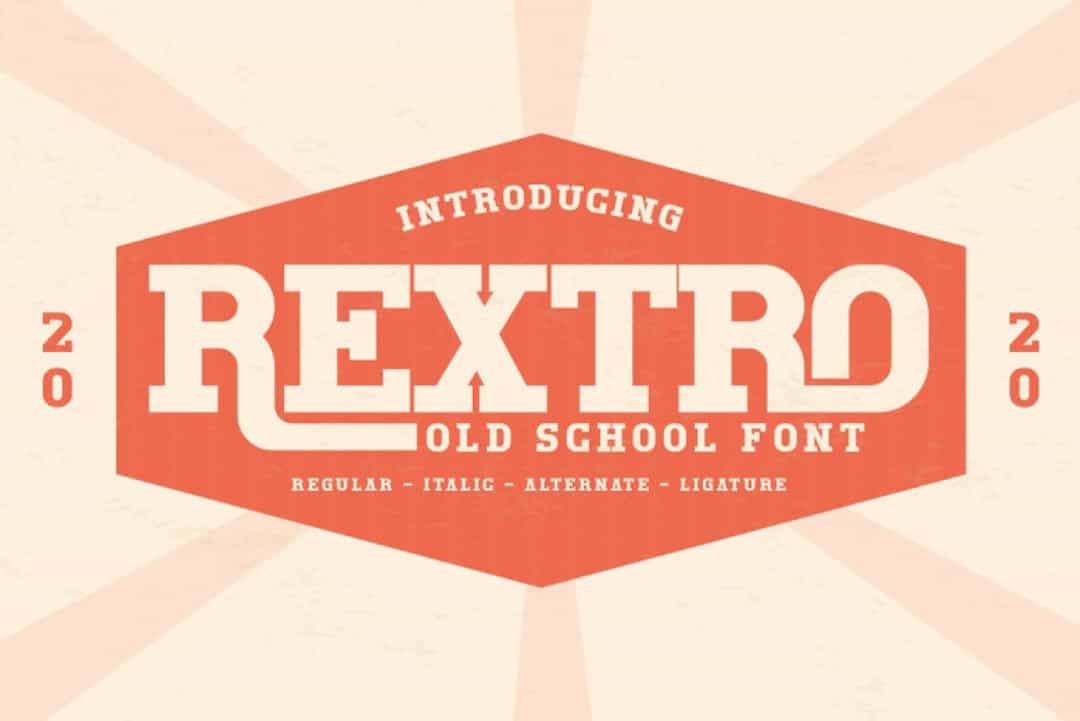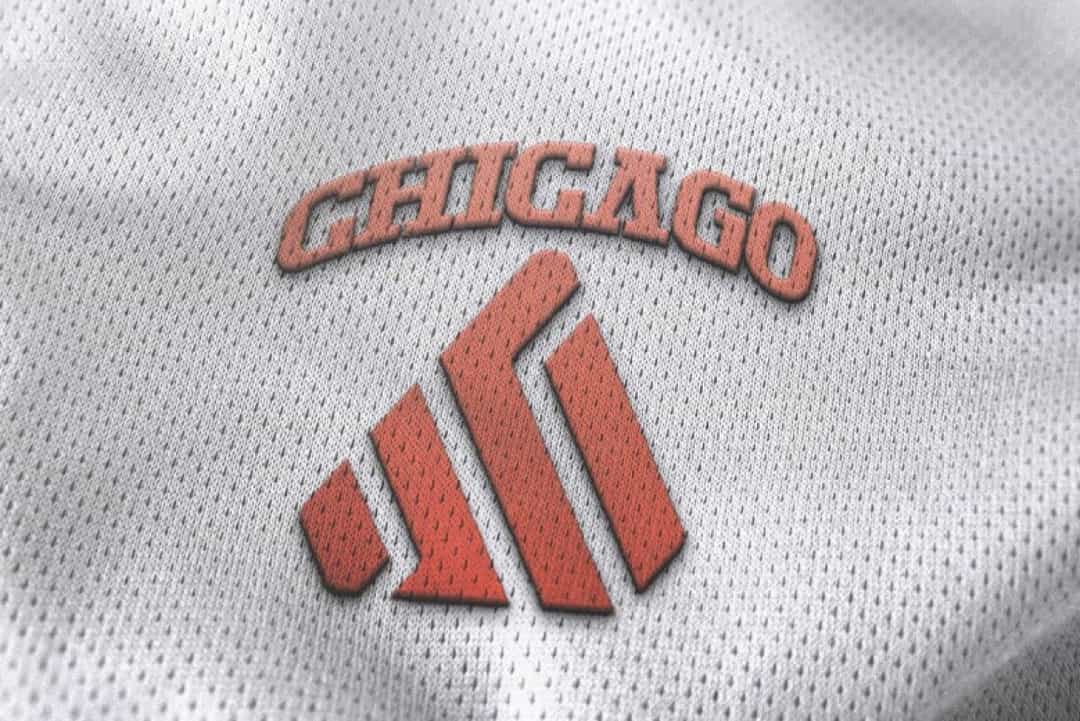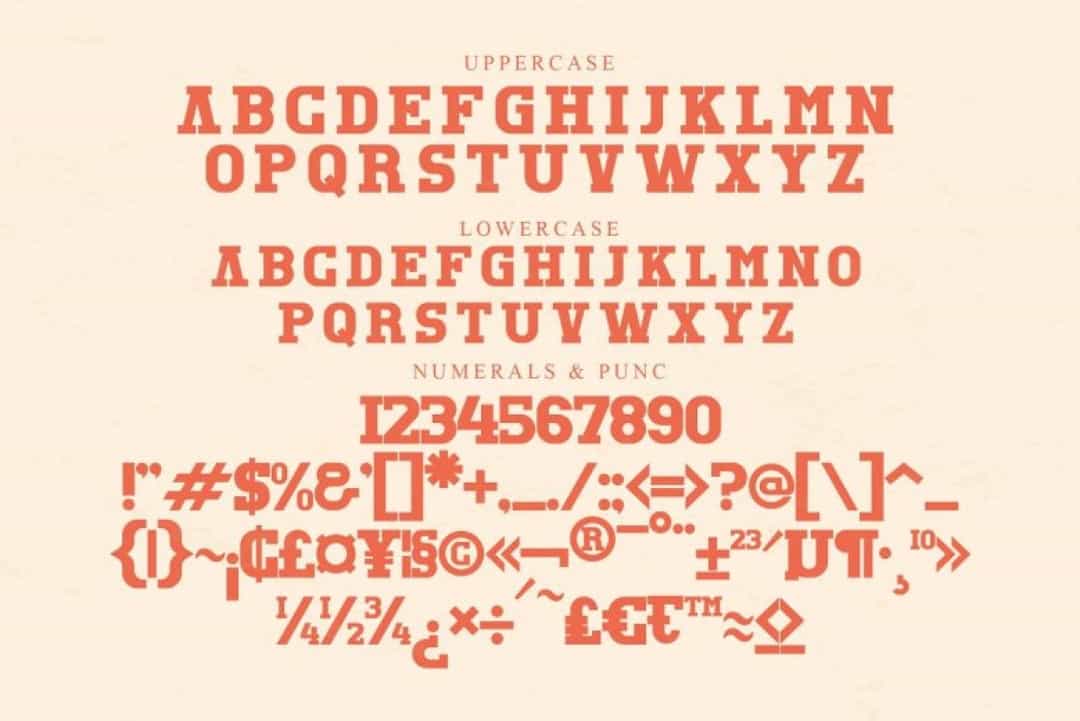
Rextro font was developed by Storytype. This serif, vintage, modern and classic typeface boasts its own distinct design and contemporary appearance – perfect for creating classy and elegant logos, book or film titles, fashion brands clothing magazines lettering quotes etc.